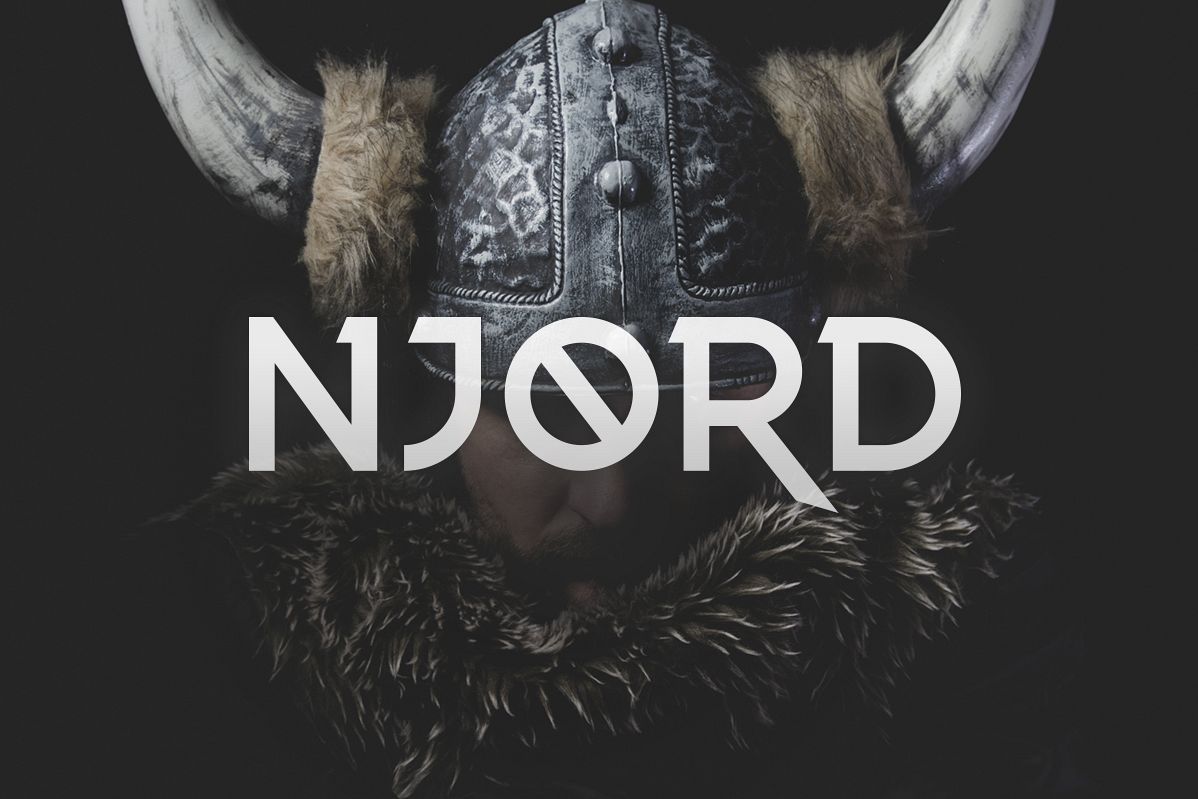
Njord Typeface
Njord Alternate
Njord Regular
Njord is a display typeface that features a unique alternate style. The typeface includes uppercase multilingual letters, numbers and punctuation. I've found the font to be great for logos, titles and I enjoy using it with really wide spacing.